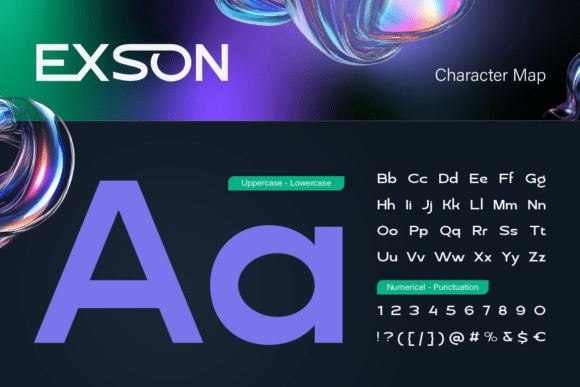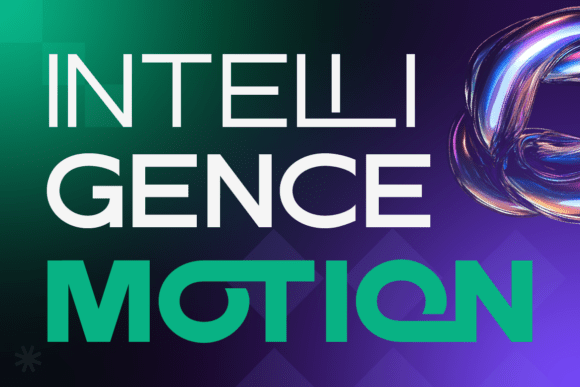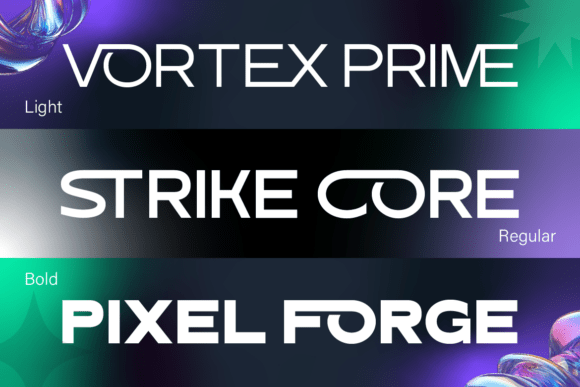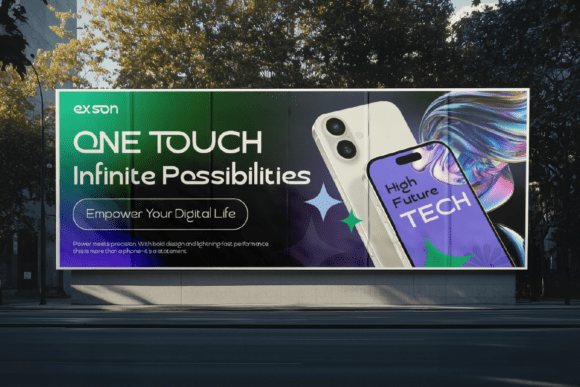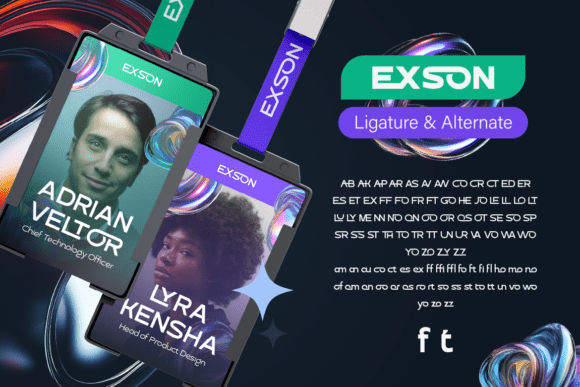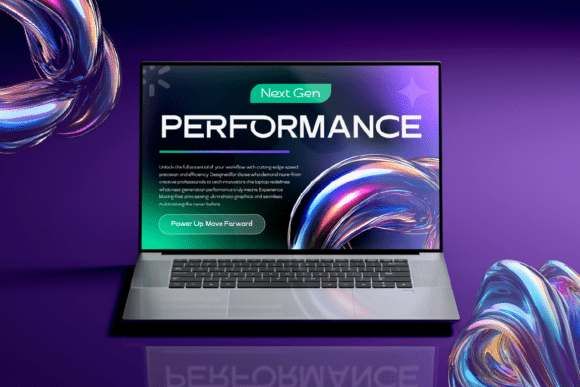
Introducing Exson Font: The Ultimate Modern Sans Serif Typeface
In the world of typography, fonts play a crucial role in conveying the tone and personality of a brand or design project. If you’re looking for a typeface that exudes a futuristic, bold presence, look no further than Exson Font. This clean and modern sans serif font is designed to elevate your projects with its sleek curves, unique letterforms, and versatility.
Key Features of Exson Font
Exson Font boasts several key features that make it an ideal choice for designers and crafters. Here are a few:
- 3 Weights: Exson Font comes in three weights – Light, Regular, and Bold – allowing you to adapt it to various design contexts, from display headlines to body text.
- Sleek Curves and Unique Letterforms: The font’s sleek curves and unique letterforms, made possible by alternates and ligatures, give it an eye-catching and distinctive edge.
- Modern and Futuristic: Exson Font’s modern sans serif design makes it perfect for projects that require a bold, futuristic presence.
Use Cases for Exson Font
Exson Font’s versatility makes it suitable for a wide range of design applications, including:
- Branding: Use Exson Font to create a bold, modern brand identity that stands out from the competition.
- Tech Startups: Exson Font’s futuristic vibe makes it an excellent choice for tech startups looking to establish a cutting-edge brand image.
- Digital Interfaces: The font’s clean and legible design makes it perfect for digital interfaces, such as mobile apps, websites, and software.
- Editorial Design: Exson Font’s sleek curves and unique letterforms make it an excellent choice for editorial design projects, such as magazines, newspapers, and books.
Why Choose Exson Font?
So, why should you choose Exson Font for your next design project? Here are a few compelling reasons:
- Modern Edge: Exson Font adds a modern edge to your design, setting it apart from more traditional typefaces.
- Sleek and Smart: The font’s sleek curves and unique letterforms make it look sleek and smart, perfect for designs that require a high level of sophistication.
- Bold Presence: Exson Font’s bold presence makes it perfect for designs that require a strong visual impact.
Tips for Using Exson Font
To get the most out of Exson Font, here are a few tips to keep in mind:
- Experiment with Weights: Try using different weights of Exson Font to create visual hierarchy and add depth to your design.
- Play with Alternates and Ligatures: Take advantage of Exson Font’s alternates and ligatures to add unique touches to your design.
- Pair with Other Fonts: Experiment with pairing Exson Font with other fonts to create a unique and visually appealing typography scheme.
In conclusion, Exson Font is a versatile and modern sans serif typeface that is perfect for designers and crafters looking to add a bold, futuristic presence to their projects. With its sleek curves, unique letterforms, and range of weights, Exson Font is ideal for a wide range of design applications, from branding and tech startups to digital interfaces and editorial design. Whether you’re looking to create a modern edge or make a bold statement, Exson Font is an excellent choice.